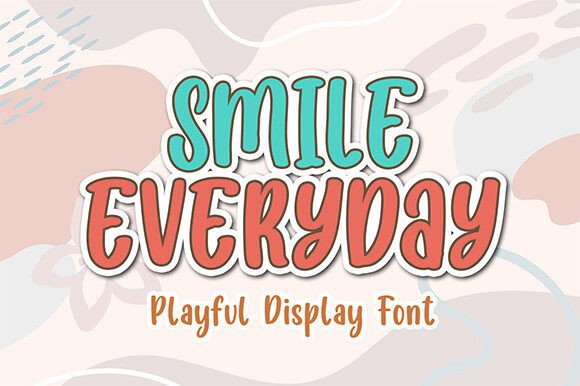
Journey into a world of endless giggles and playful expressions with Smile Everyday Font, the ultimate display font that captivates the essence of childhood wonder. Designed by the creative minds at Bluestype Studio, this font bursts with energy, adding a touch of whimsy and charm to any design project.
Feel the warmth of its friendly curves and quirky letterforms that dance across your screen, evoking a sense of pure joy and lightheartedness. Let Smile Everyday Font be your artistic companion as you craft captivating logos, vibrant magazine covers, or heartfelt birthday cards that radiate happiness.
Picture the smiles that will bloom when your audience encounters your designs adorned with Smile Everyday Font. Its playful nature makes it perfect for projects targeting kids, evoking the innocence and imagination that reside in every young heart. Create playful quotes that inspire and uplift, leaving a lasting impression on your readers.
With its versatility, Smile Everyday Font adapts seamlessly to various design styles. Elevate book covers with a touch of whimsy, or infuse your invitations with a dash of fun. Unleash your creativity and let this charming font transform your designs into captivating expressions of joy and cheer.
The possibilities are endless with Smile Everyday Font. Dive into a world of creative freedom and let your imagination run wild. Its user-friendly nature makes it accessible to both seasoned designers and those just starting their artistic journey. Embrace the power of this font and watch as your designs come alive with the infectious spirit of childhood laughter.
Embrace the magic of Smile Everyday Font today and embark on an artistic adventure that captivates hearts and spreads happiness with every stroke. Let your designs radiate the warmth of genuine smiles and become a source of joy for all who encounter them.